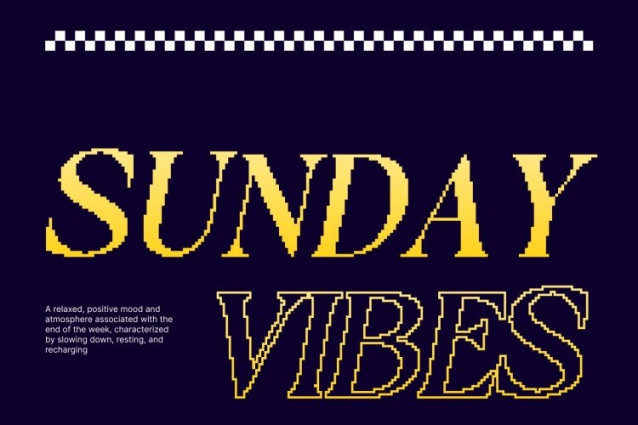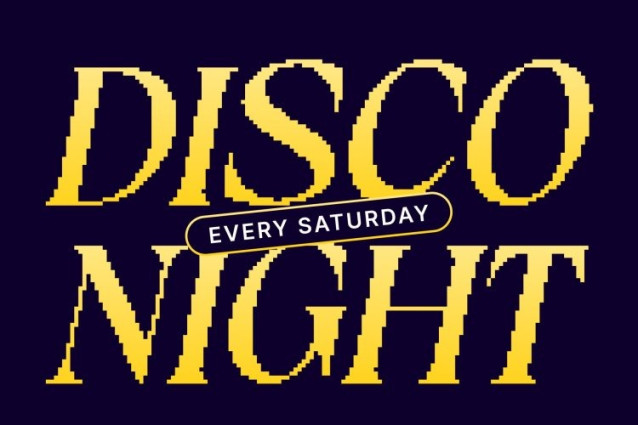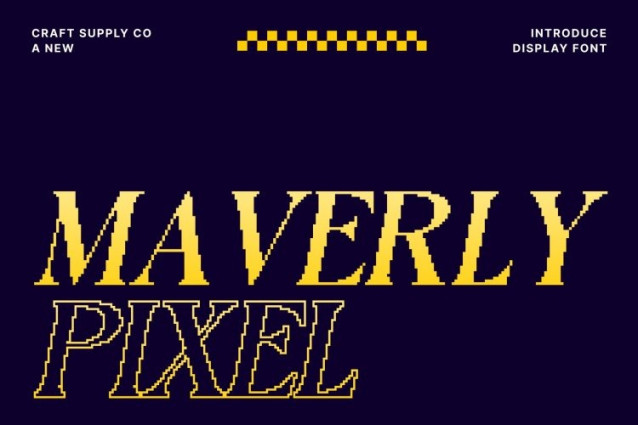
Maverly Pixel Font This is a modern serif display font that captures the charm and nostalgia of the classic 8-bit arcade era. Its pixel-inspired construction combines retro digital aesthetics with contemporary serif design, creating a font that is both playful and professional. Each letter feels deliberately crafted to bring a sense of digital history and timeless style.
Nostalgic 8-Bit Aesthetic for Retro Appeal
Designed with sharp pixel edges and structured forms, this font immediately recalls the graphics of early video games. This nostalgic feel adds a unique character to your typography, making it perfect for projects that aim to connect modern design with retro digital culture.
Modern Serif Structure for Professional Versatility
Beneath its pixelated texture, Maverly Pixel maintains clean, readable serif forms. The modern serif structure balances the playful retro influence, ensuring clarity and elegance in every application. This makes the font suitable for both creative and professional contexts, from branding to editorial layouts.
Perfect for Digital Branding, Posters, and Retro-Modern Projects
This font excels in designs that blend nostalgia with modernity. Ideal for digital branding, posters, social media graphics, or retro-inspired campaigns, it delivers a visually engaging and memorable style. Use it to evoke the spirit of classic gaming while maintaining contemporary sophistication, making your projects stand out with a playful, digital edge.